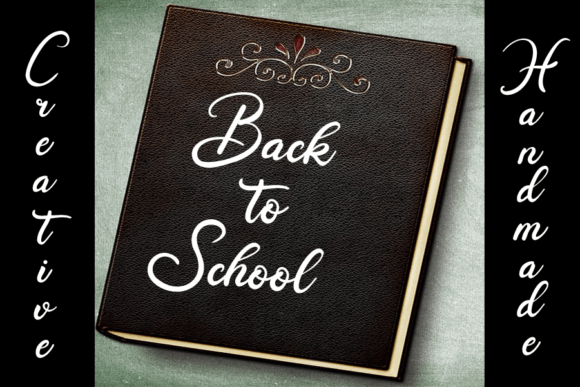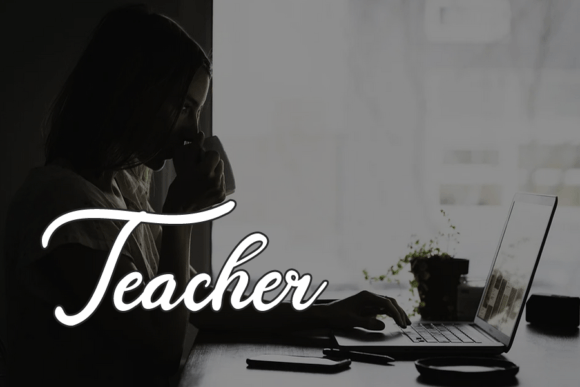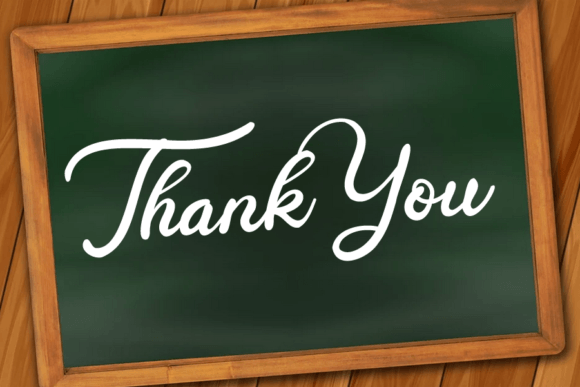
Student Font
About Student Font
**Student**: *Where Elegance Meets Delicacy*
Student is more than just a font; it’s a lovely and delicate script typeface that brings a refreshing and elegant touch to your designs. Created with precision, this font exudes an air of authenticity and class, making it a perfect choice for those seeking a beautiful and refined look in their creative work.
What sets Student apart is its remarkable ability to combine elegance with delicacy. The font’s meticulously designed characters convey a sense of authenticity and grace, making it an ideal choice for projects that demand a touch of charm and visual refinement. Student is the font that can effortlessly enhance your designs, ensuring they radiate a unique blend of elegance and delicacy.
Student strikes the perfect balance between modern aesthetics and classic sophistication, making it a versatile and invaluable choice for projects that aim to make a statement.
In branding and design projects, Student adds a unique sense of character and sophistication, making your content more memorable and enchanting. Whether you’re working on logos, stationery, or promotional materials, the font’s graceful beauty enhances the visual appeal of your creations, making them captivating and refined. Whether you’re designing for digital or print, Student brings an air of elegance and charm to your creative work.
One of Student’s most remarkable qualities is its adaptability. It can seamlessly transition from a formal and polished tone to a more expressive and artistic one, making it suitable for a wide range of creative applications. Its ability to convey elegance and delicacy ensures that it remains a cherished choice for designers and creators across diverse industries.
In summary, Student is more than just a font; it’s a design asset that masterfully combines elegance with delicacy. Its beautifully crafted characters and timeless charm position it as an indispensable tool for anyone seeking to infuse their creative projects with a touch of sophistication and visual allure. Embrace the elegance and delicacy of Student, and watch your designs come to life with ease and artistic flair, leaving a lasting impression and captivating your audience with its classic and refined presence.